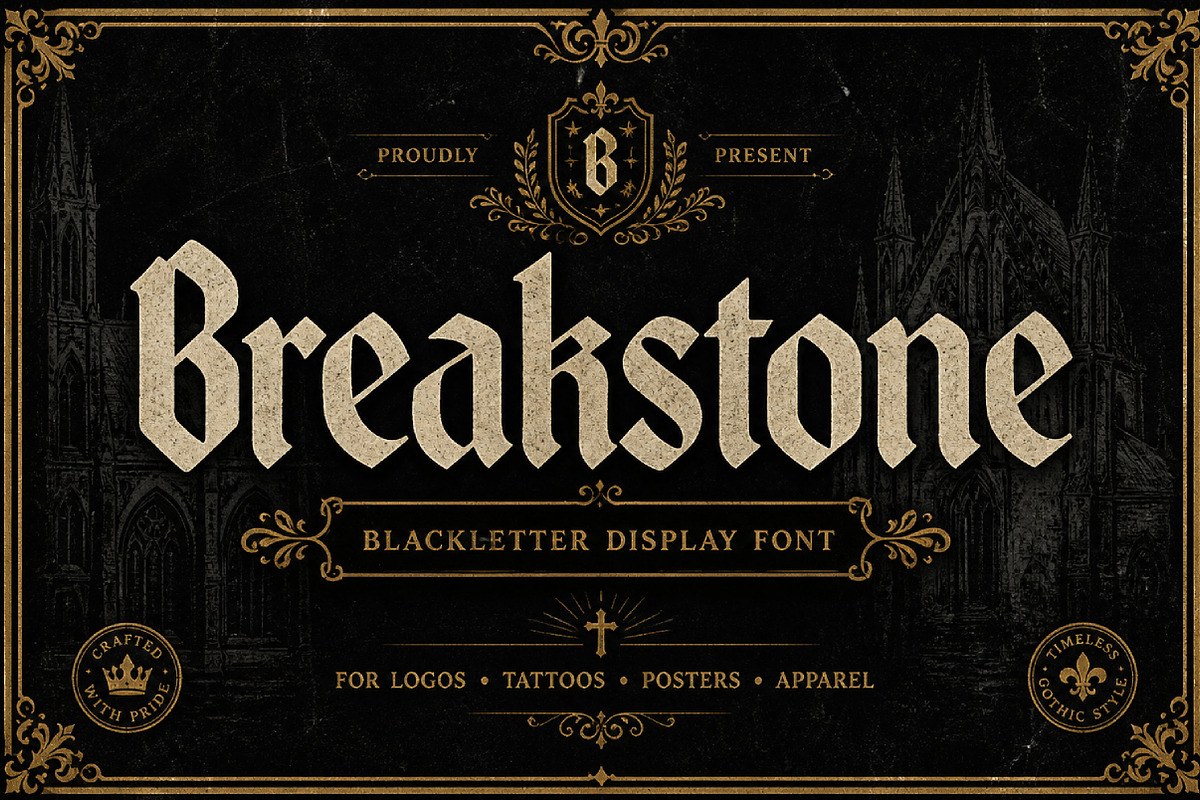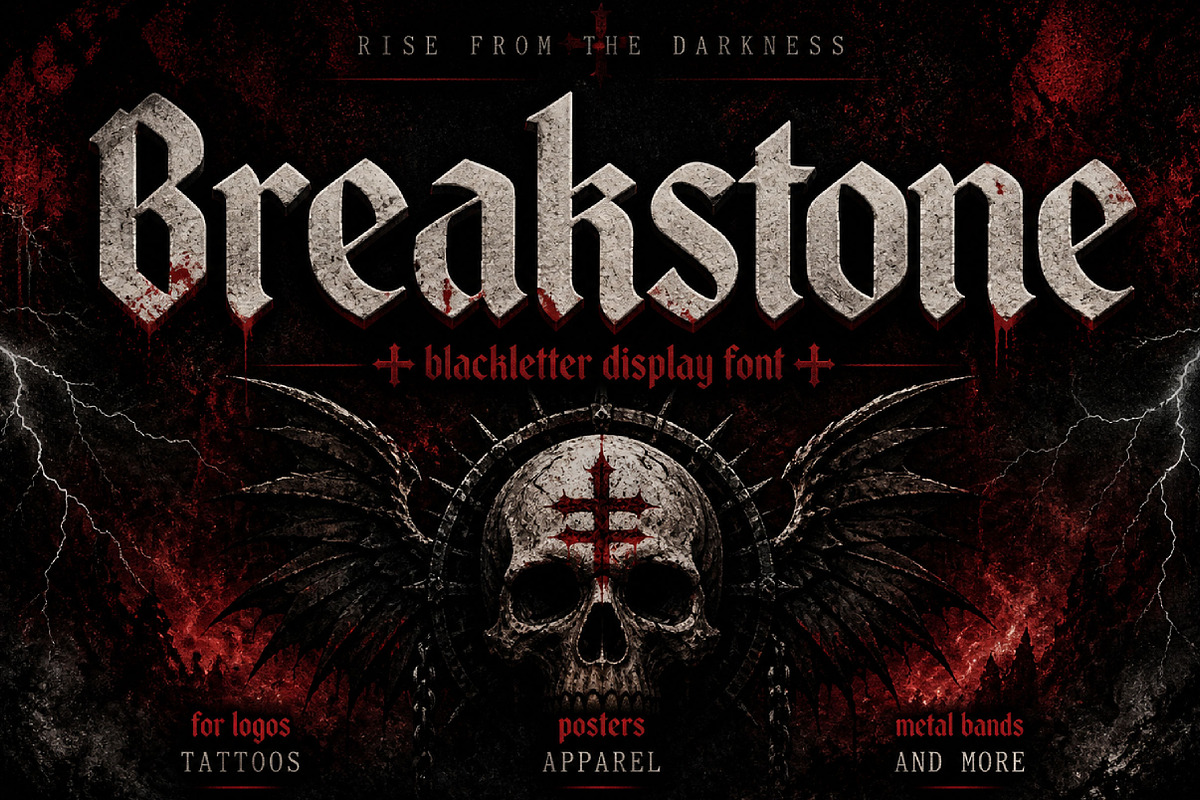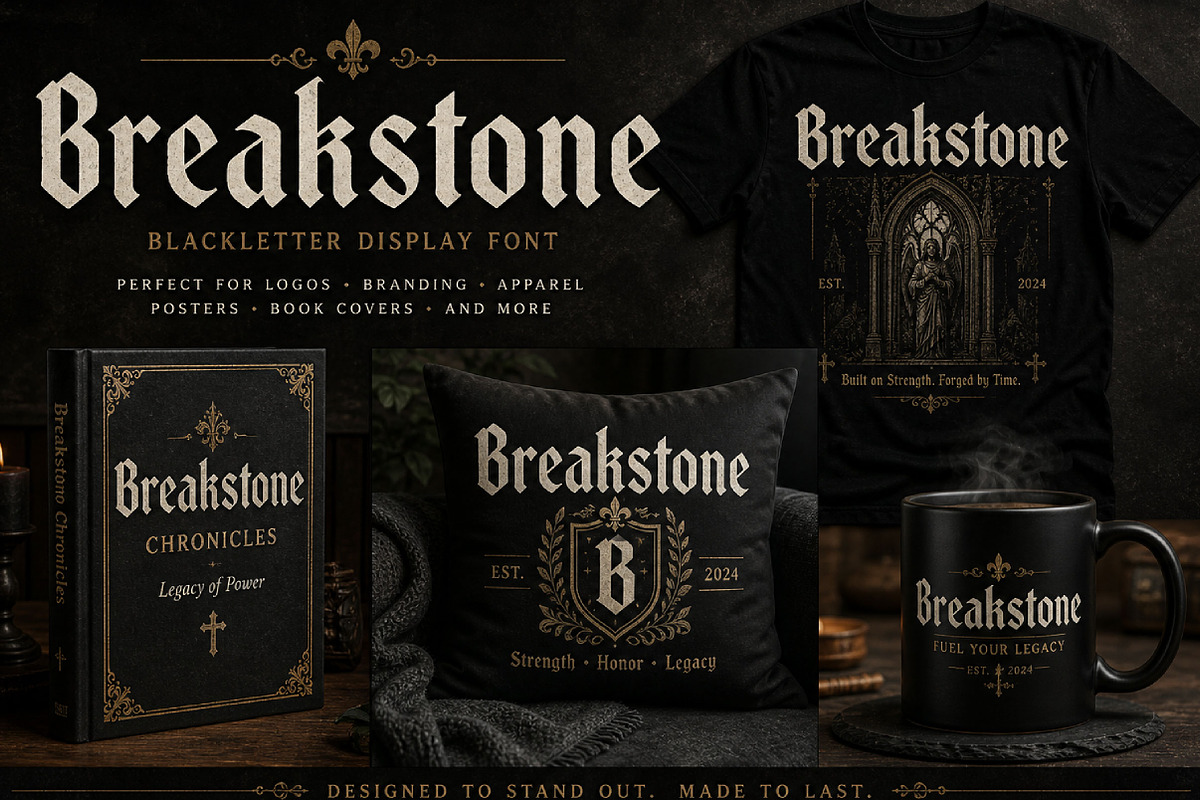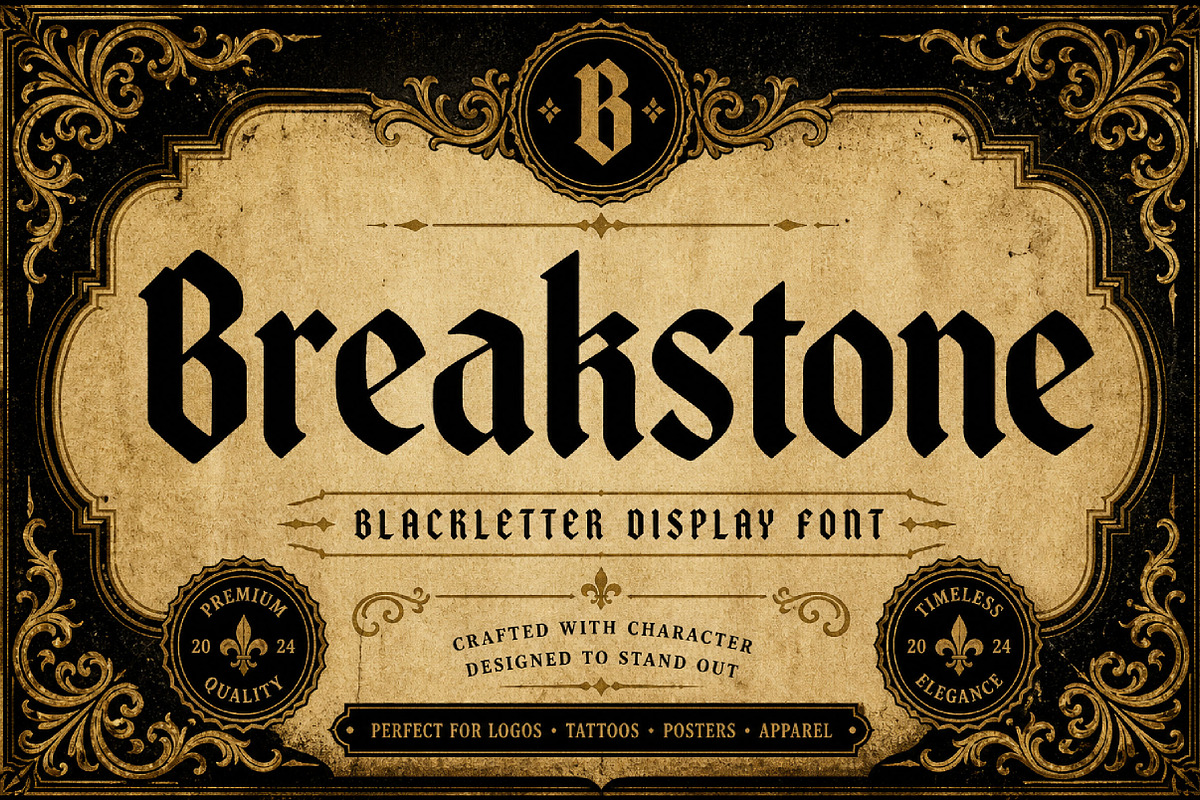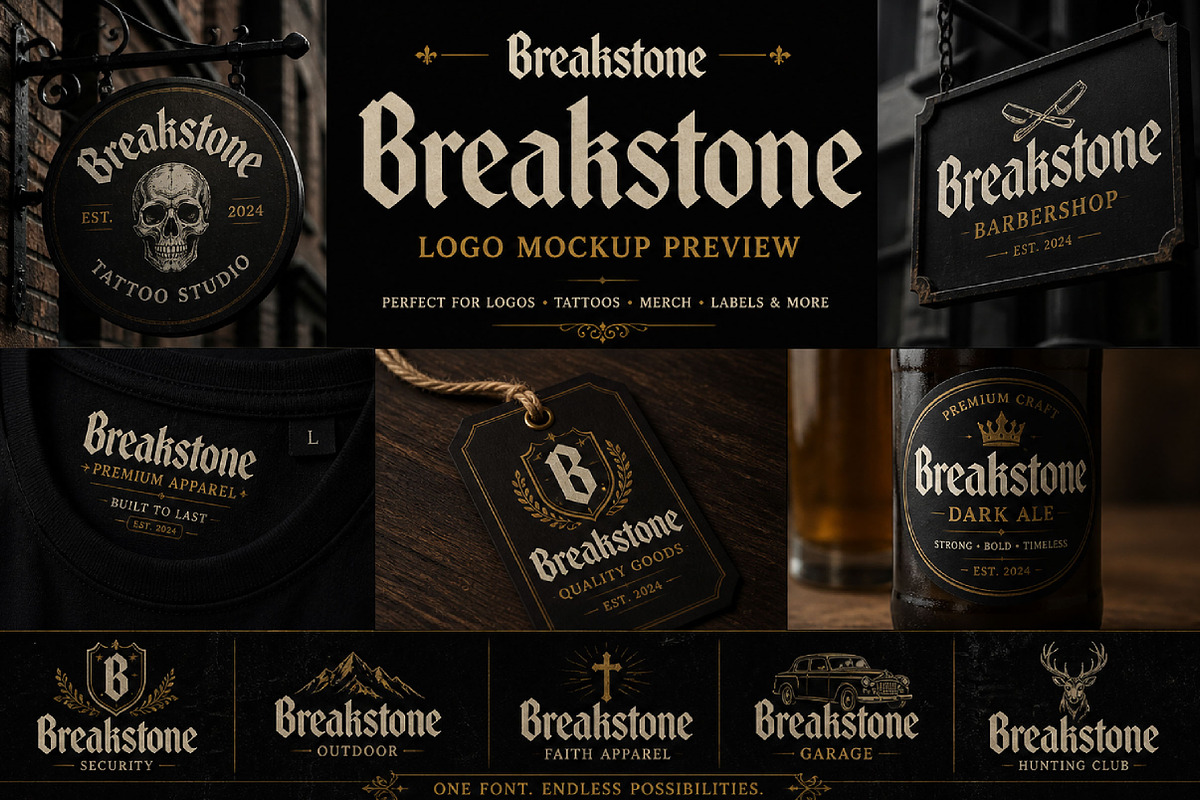
Breakstone
Breakstone – Bold Gothic Display Font
Breakstone is a bold gothic display font with sharp blackletter-inspired shapes and a strong medieval character. Perfect for logos, posters, branding, tattoos, album covers, apparel, and dark creative projects.
Breakstone is a powerful gothic display font designed to create bold, dramatic, and eye-catching typography. With its sharp edges, strong letterforms, and blackletter-inspired structure, this font delivers a classic medieval feel with modern display impact.
Its dark and commanding style makes Breakstone ideal for projects that need strength, attitude, and timeless character. Use it for logos, poster headlines, album covers, tattoo artwork, fashion branding, merchandise, packaging, event graphics, and gothic-themed designs.
Whether you are creating a vintage logo, dark music cover, medieval poster, or bold apparel design, Breakstone gives your typography a strong and unforgettable presence.
Logos and branding
Gothic posters
Album covers
Tattoo-style artwork
Apparel and merchandise
Fashion labels
Luxury packaging
Event graphics
Medieval themes
Bold display typography
Uppercase letters
Lowercase letters
Numbers and punctuation
Bold gothic style
Sharp blackletter-inspired forms
Strong medieval character
Perfect for display use